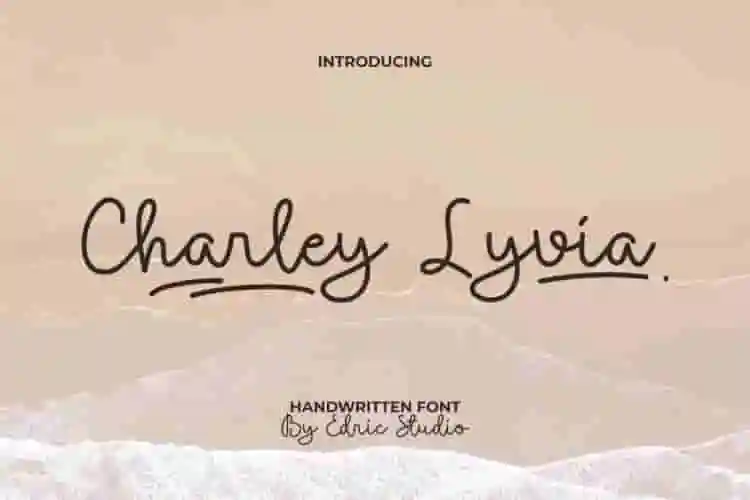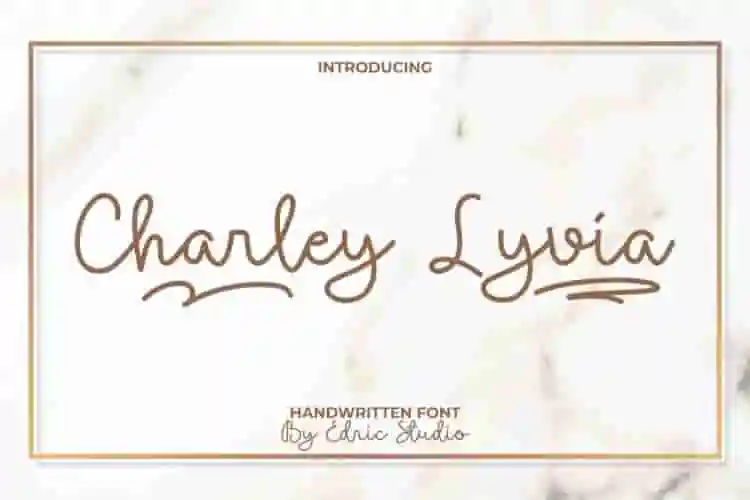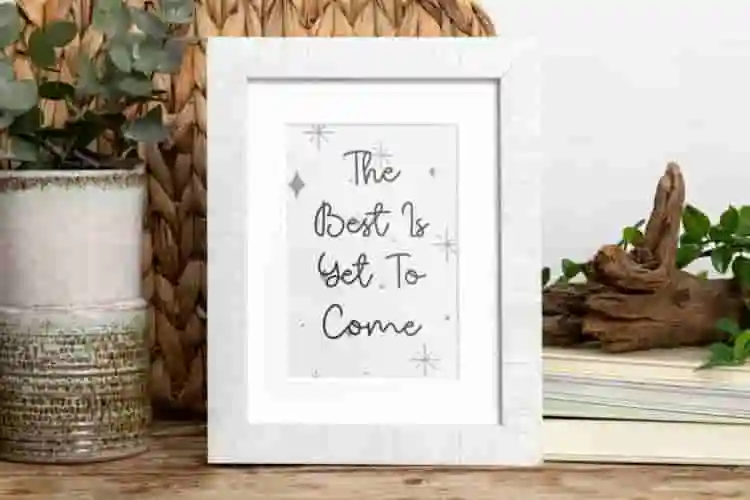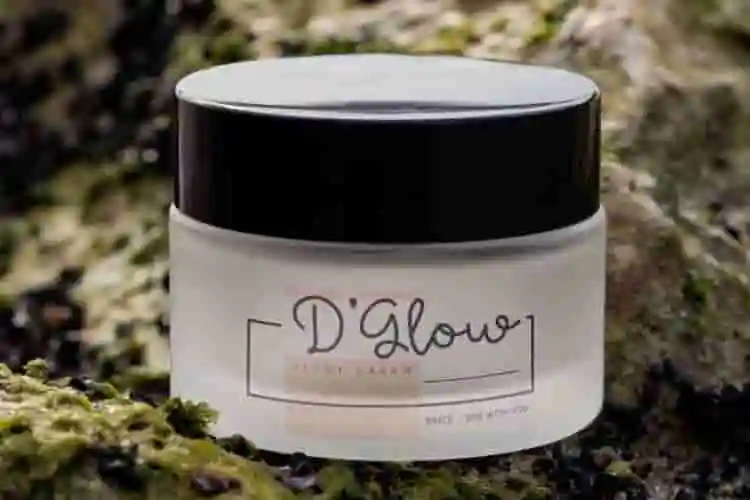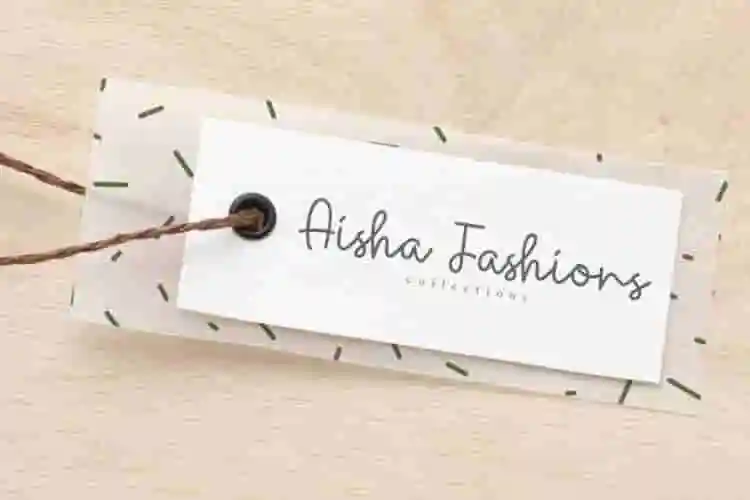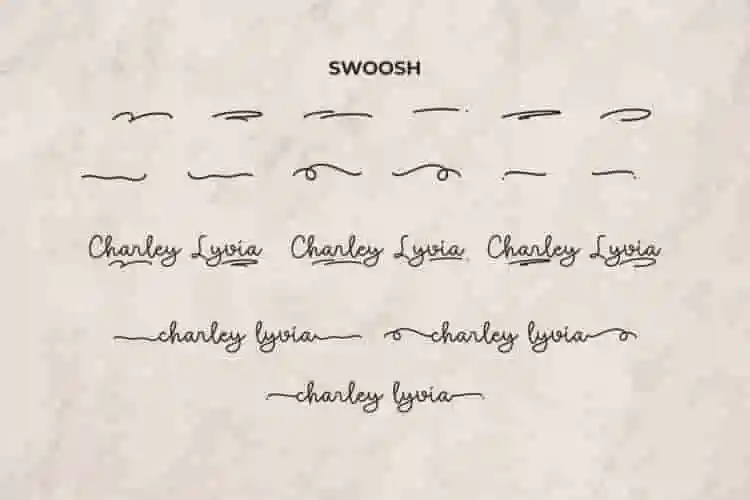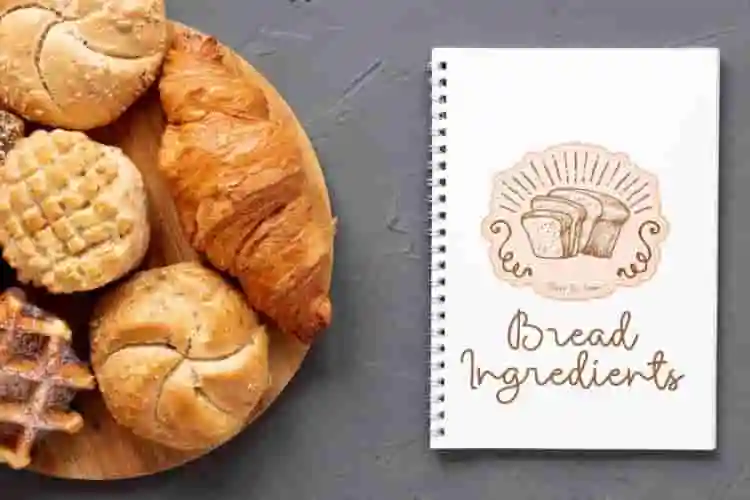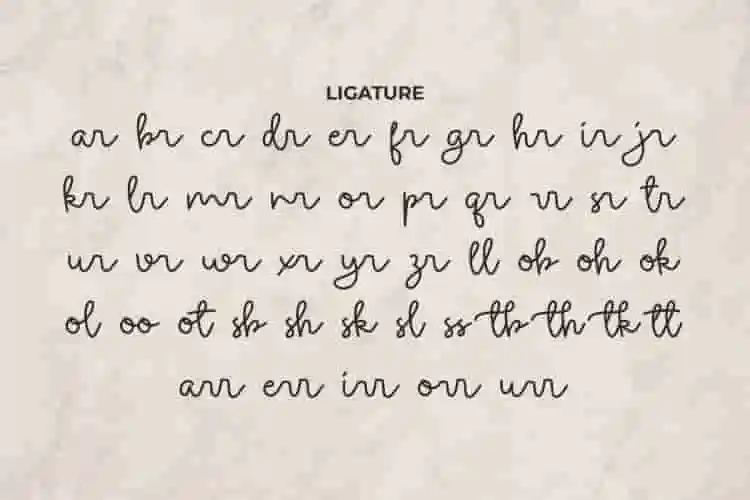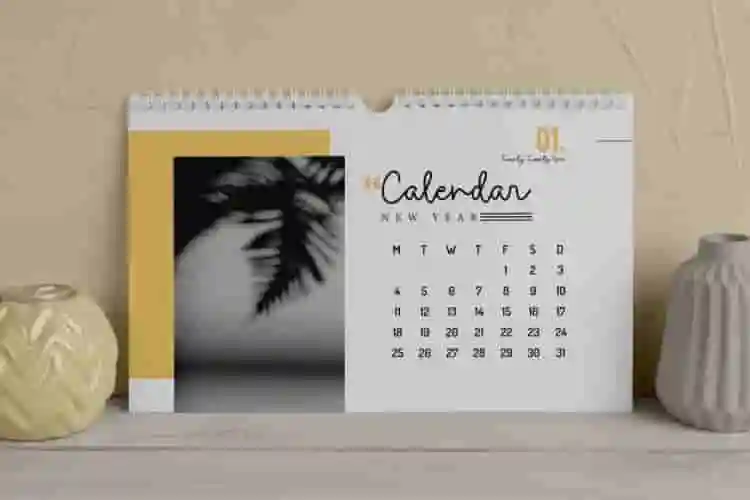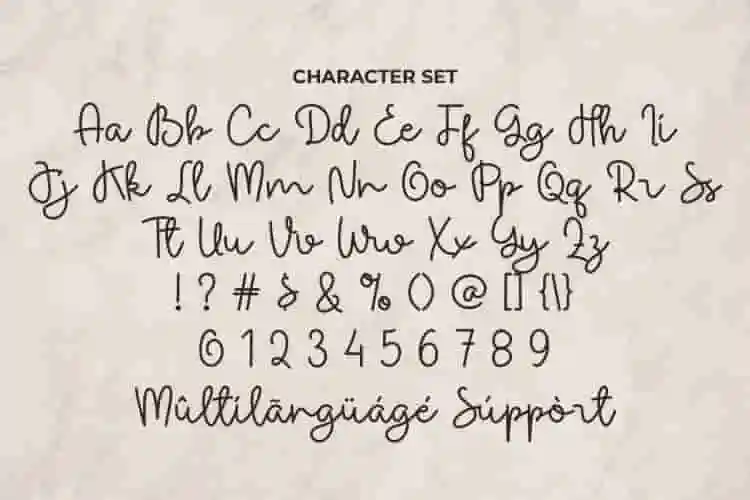
Charley Lyvia Font is a stylish handwritten font created by EdricStudio, inspired by European cursive made modern and simple with beautiful line strokes. Almost all industries will be match for this typeface including: architect, author, bakery, craft, care & beauty, clothes & fashion, florist, publishing, real estate, wedding organizer, etc.
Charley Lyvia Font comes with a full set of Uppercase and Lowercase Basic Characters, Number, large range of Punctuation and Symbol, Ligature, Swoosh. It has a stunning characters set, perfectly managed with well spaced and kerning. Charley Lyvia Font will be great for any projects (with extended license) including: calendar, invitation, label, product packaging, quotes, recipe book, stationery, title, etc.
Say hello to Charley Lyvia, a modern handwriting script font designed to bring a soft, personal touch to your designs. With smooth strokes and natural flow, this font feels like a true handwritten note — friendly, elegant, and full of charm. Perfect for logos, Instagram posts, wedding invitations, lifestyle blogs, packaging, and more, Charley Lyvia is made for creatives, entrepreneurs, and designers who want something clean yet expressive.
Introducing Charley Lyvia, a gentle and stylish handwriting font that captures the beauty of natural writing with a clean, modern twist. Designed with care, each letter flows with ease, making it perfect for designs that need a personal and approachable feel.
From Instagram quotes to branding for creatives, wedding invitations, and small business packaging, Charley Lyvia brings warmth and clarity to every word. It feels handwritten — because that’s how you want your message to come across: authentic and full of heart.
- Multilingual Support
Charley Lyvia Handwriting Font also supports multilingual characters. Ready to use both on Windows machine or Mac with simple installations. It’s tested to work well in the Adobe Apps (Illustrator, Adobe InDesign, Adobe Photoshop) even work on Microsoft Word. PUA Encode Characters means you can access all the glyphs and swashes with ease – Fully accessible without additional design software.